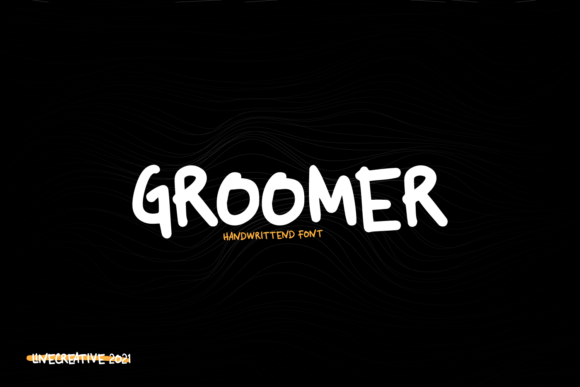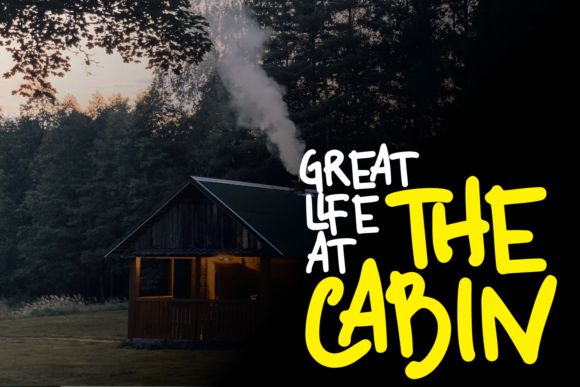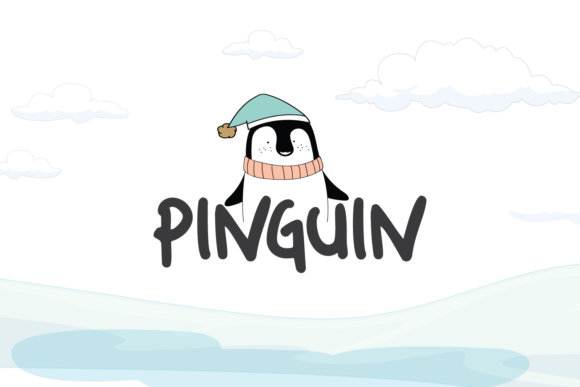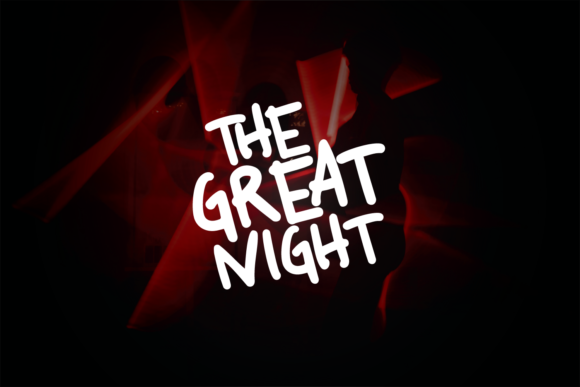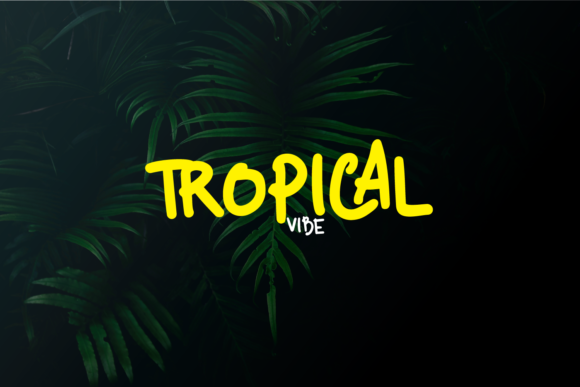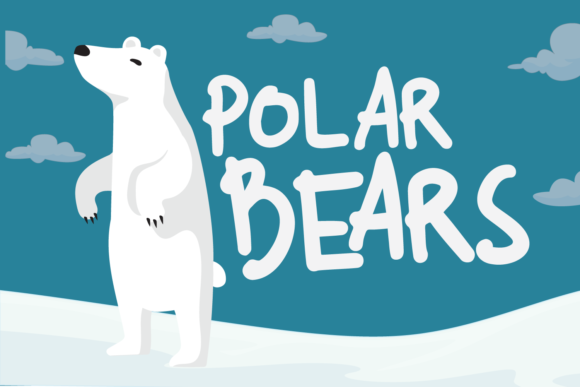
About Groomer Font
Groomer is a bold and simple handwritten font. This font is the ideal font for adding an adventurous and authentic feel to your next design idea!